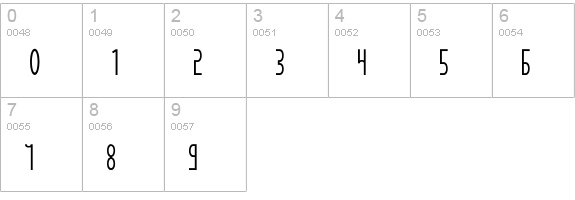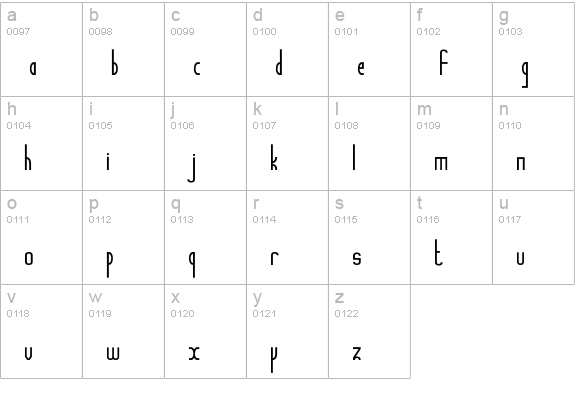
Stelefont Font Details
Introducing Stelefont, a modern and stylish font that is sure to make your designs stand out. This versatile typeface features clean lines and a contemporary feel, making it perfect for a wide range of projects. Whether you're designing a logo, creating a poster, or crafting a website, Stelefont has you covered. What sets Stelefont apart is not only its sleek design, but also the fact that it is completely free to use. That's right, you can download this amazing font for free at FontsMarket.com. With Stelefont in your toolkit, you'll have endless possibilities for creating eye-catching and professional-looking designs. Don't miss out on this fantastic opportunity to elevate your projects with the elegant and modern Stelefont. Download it now and let your creativity soar!